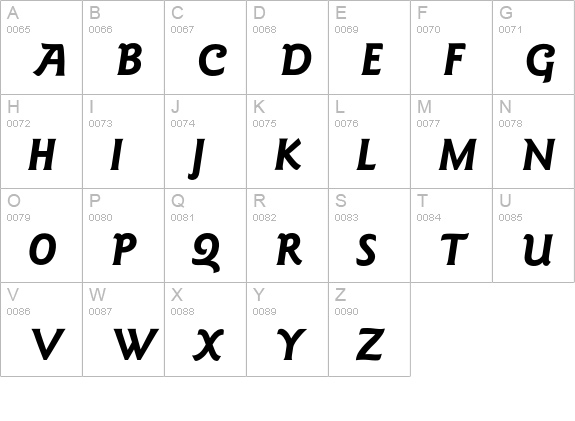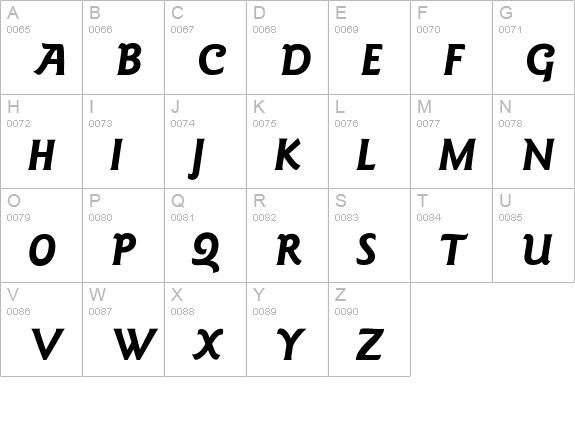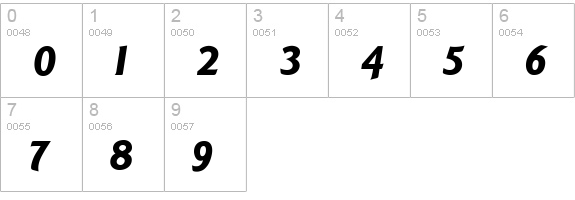
GoudySansBoldItalic Font Details
GoudySansBoldItalic is a versatile and elegant font that combines the boldness of GoudySans with a touch of stylish italicization. This font exudes sophistication and modernity, making it perfect for a wide range of design projects. Its clean lines and unique curves give any text a distinct and professional look. And the best part? GoudySansBoldItalic is available for free download at FontsMarket.com. Whether you're designing a sleek logo, a striking poster, or a polished website, this font is sure to elevate your project to the next level. Don't miss out on the opportunity to enhance your designs with this exceptional typeface. Download GoudySansBoldItalic today and let your creativity soar!